Fancy Letter Q Font
Every fancy font style rendered for just the letter Q, so you can compare them side by side before picking one for an initial, a logo, or a single-character tag.
The Letter Q in Every Style
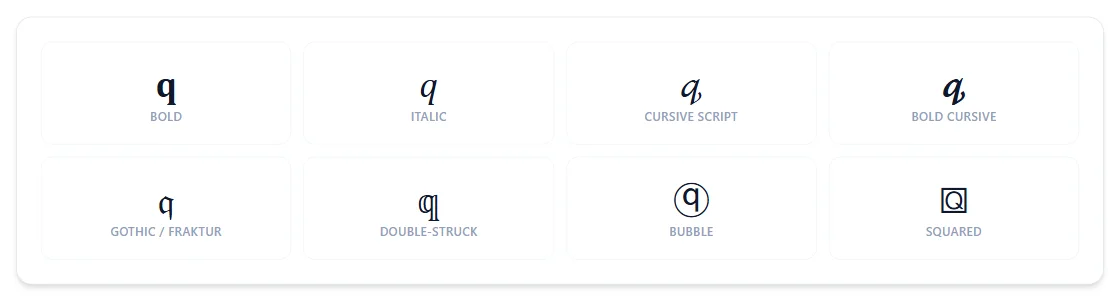
Q is one of only two letters (alongside X) with no dedicated Small Caps glyph, so it passes through unstyled in that one style — everywhere else, including its Double-Struck form ℚ (the math symbol for rational numbers), it renders normally.
Why doesn't Q change in the Small Caps style?
Q (along with X) has no dedicated small-caps glyph in Unicode, so it passes through as a regular capital while the rest of the word gets styled.
Why does double-struck Q look like a math symbol?
Because it is one — ℚ is the standard notation for the rational numbers, and Unicode's double-struck Q reuses that exact character.